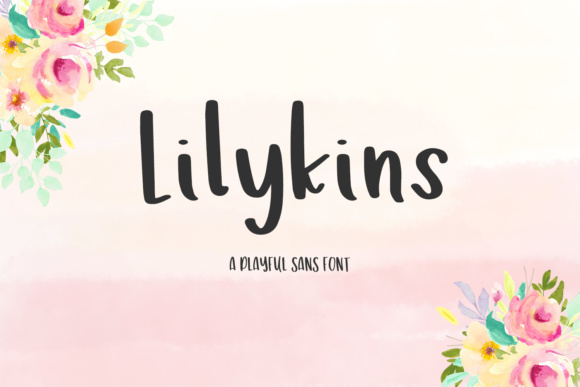
Unleash your inner child's creativity with Lilykins Font, a whimsical masterpiece waiting to adorn your designs with an irresistible charm. This hand-lettered sans font, birthed from the imagination of BeckMcCormick, is a symphony of fun and elegance, inviting you to step into a world of playful typography.
Lilykins Font effortlessly combines the allure of handwritten notes with the precision of digital design, resulting in an easy-to-read font that effortlessly adds a touch of whimsy to your projects. Picture this: your designs transformed into enchanting works of art, captivating audiences with their delightful curves and playful strokes.
Whether you're a seasoned designer or just starting your creative journey, Lilykins Font is your perfect companion. Its user-friendly design makes it effortless to incorporate into any project, from personal invitations and greeting cards to eye-catching posters and social media graphics. And with its extensive character set, including charming alternates and swashes, you'll have endless opportunities to add personality and flair to your designs.
But Lilykins Font isn't just a pretty face; it's also incredibly versatile, adapting seamlessly to a wide range of creative endeavors. Its cheerful nature lends itself perfectly to children's books, party invitations, and playful branding projects, while its elegant touches make it shine in wedding invitations, logos, and heartfelt messages.
With Lilykins Font by your side, you'll embark on a creative adventure where every design tells a story, capturing hearts with its enchanting aura. So, let your imagination soar, embrace the whimsy of Lilykins Font, and watch as your designs blossom into captivating creations that leave a lasting impression.